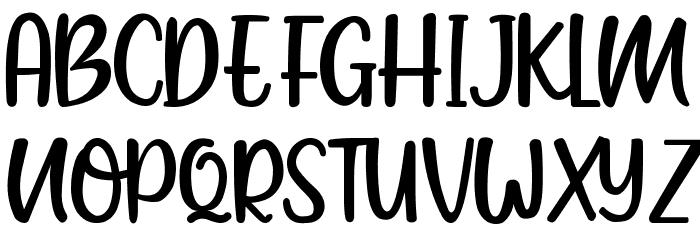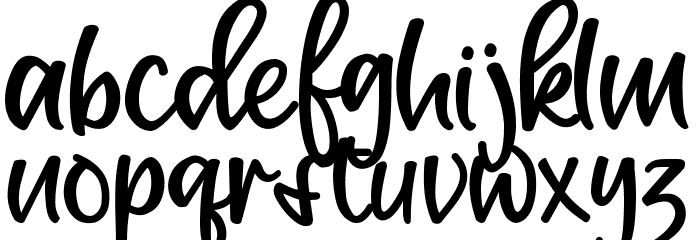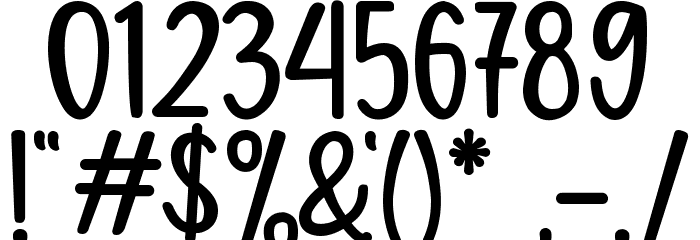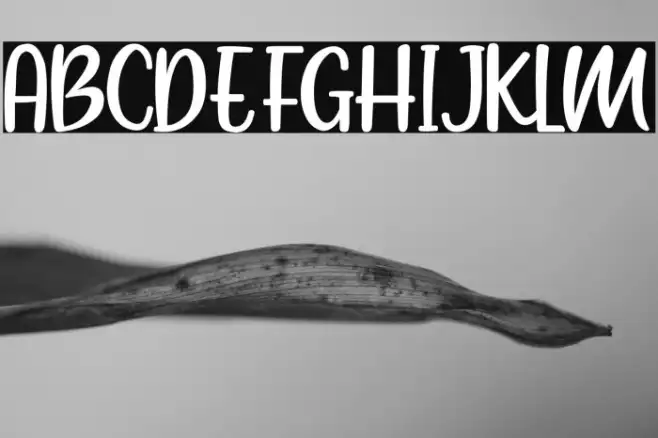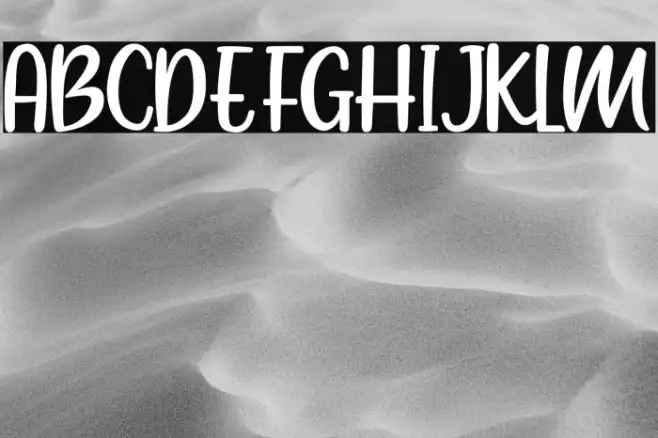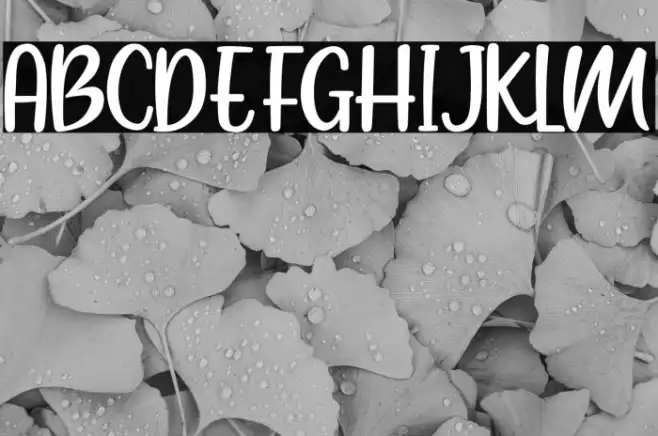
Maron American Font
This font features a playful and energetic script style with a handwritten appearance. The letters are bold and rounded, giving a friendly and approachable feel. The uppercase and lowercase characters maintain a consistent flow, with some letters featuring unique loops and curves that add to the font's charm. The numbers and special characters are equally bold and maintain the same lively style, making them easily readable. This font is well-suited for designs that require a personal touch, such as invitations, greeting cards, and playful branding.
A bold, playful handwritten script font with a friendly and energetic style.
- Font: Maron American
- Proposed Projects: Ideal for invitations, greeting cards, playful branding, and personal projects.
- Category: Handwritten
- Overall Style: Playful, Energetic
- Use Case: Logos, Headlines, Invitations